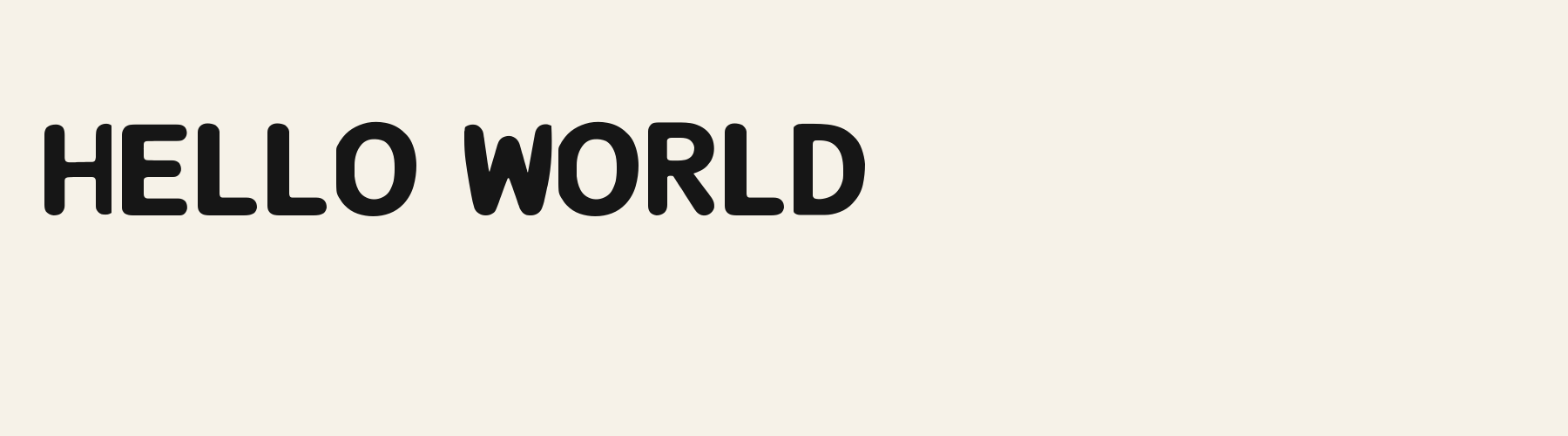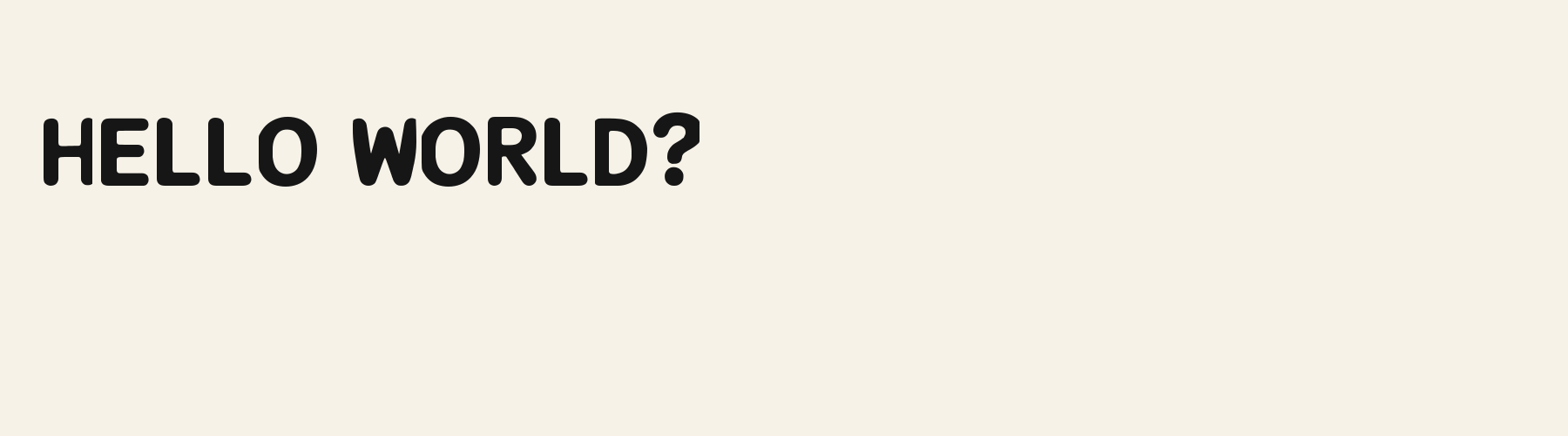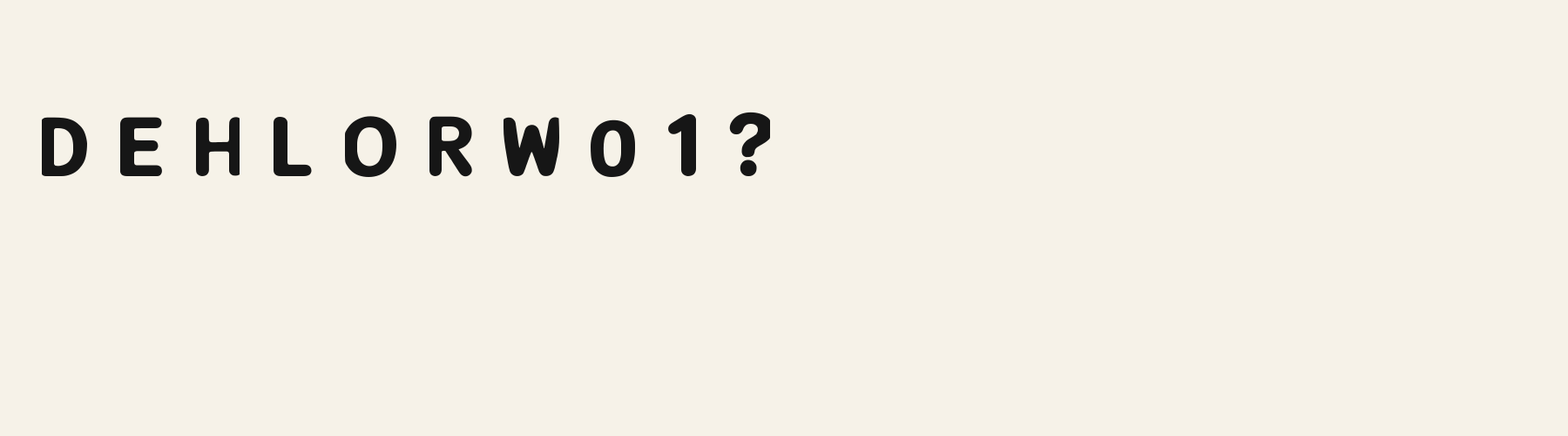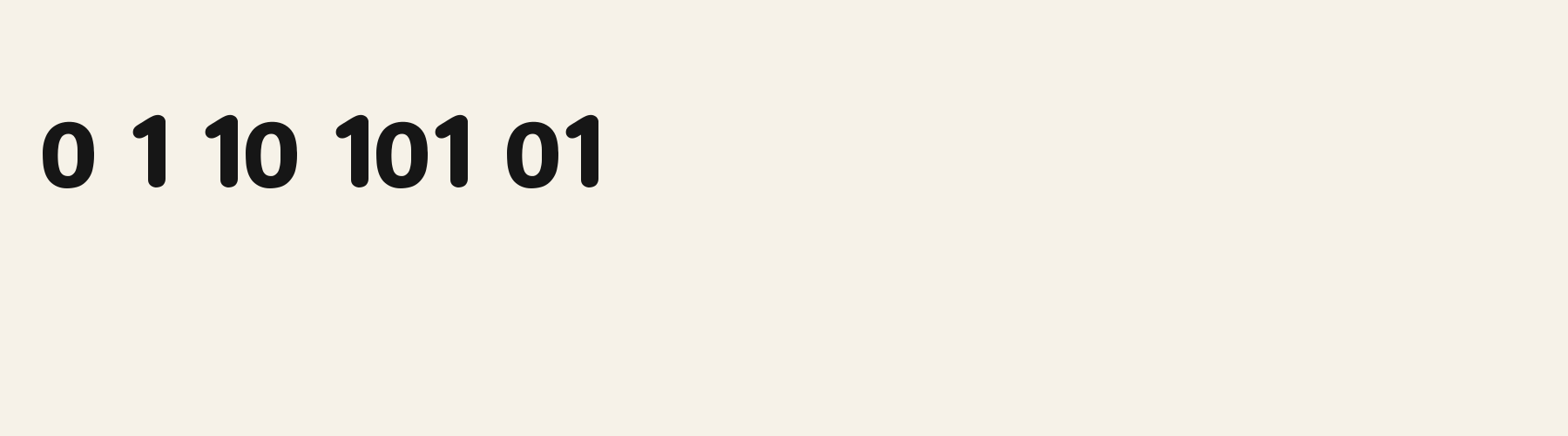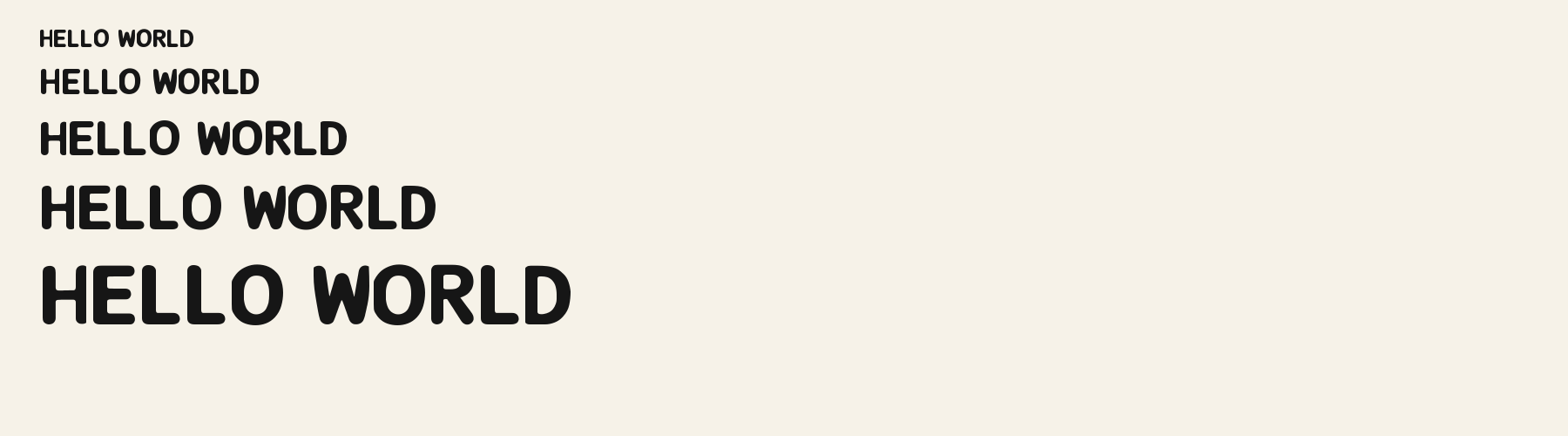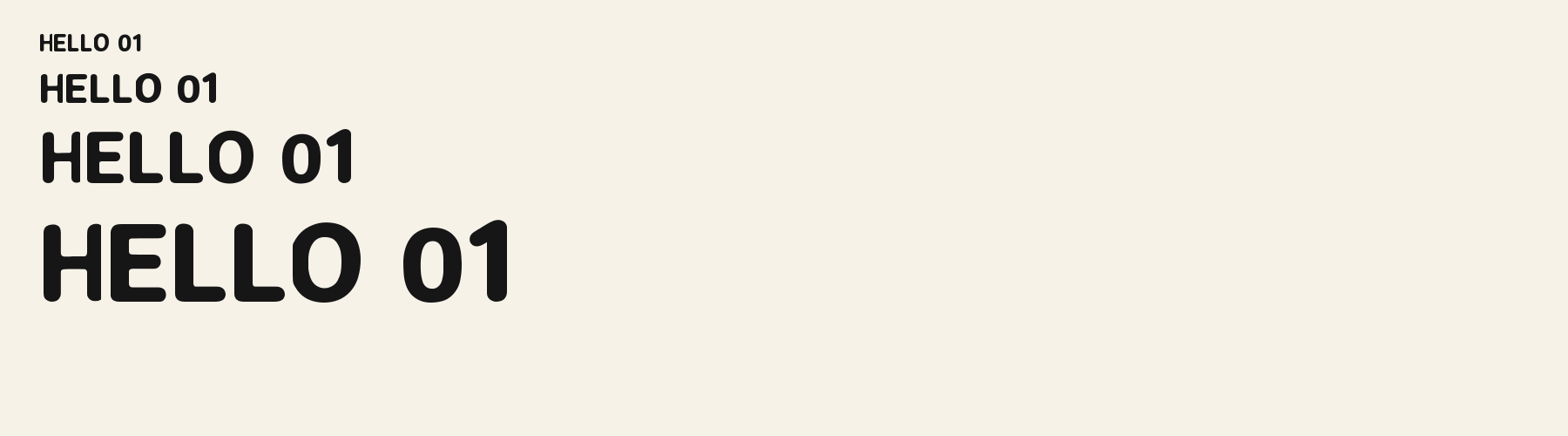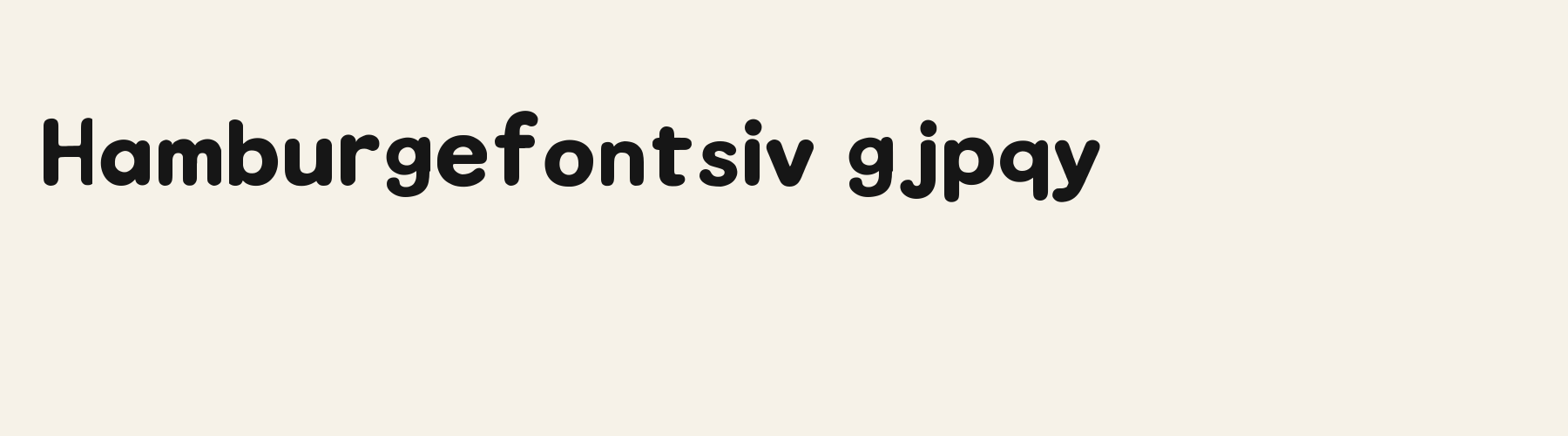
Pretty Bowline Soft
DisplayPretty Bowline Soft
Pretty Ribbon Round is a rounded display strokes turn gently at ribbon-like corners, with wide apertures and no detached bows or loops. Rounded strokes; specific weight and contrast are not specified in the brief. Best for party names, social graphics, and product labels.